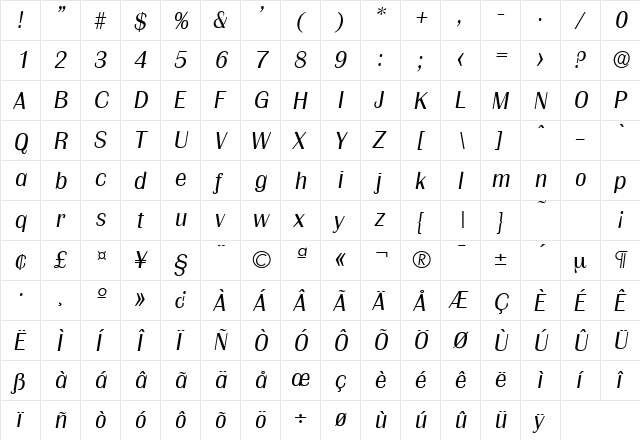
Grenoble-Serial-Light RegularItalic
Design Context for Grenoble-Serial-Light Typeface
Grenoble-Serial-Light offers clean, dependable letterforms without strong stylistic allegiance, making it a practical choice for designers who need flexibility. The slanted form adds forward momentum and visual energy. Its slender proportions lend an understated elegance to any composition.
Pro Tip: Try Grenoble-Serial-Light for annotation and caption copy alongside an upright companion — the contrast in angle creates a dynamic but ordered typographic system.